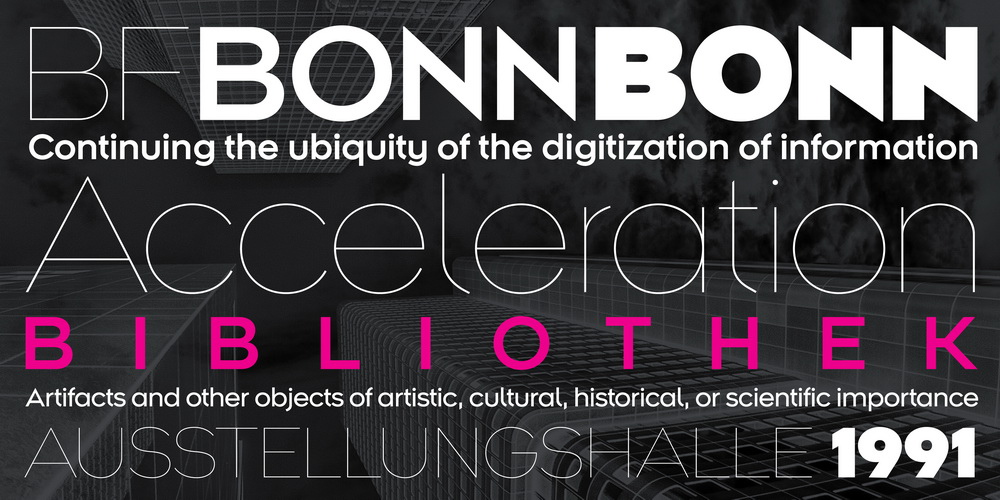
BF Bonn Font
This BF Bonn Font is perfect for German corporate branding, European business communications, diplomatic institution materials, international conference designs, government agency publications, cultural exchange programs, European Union documents, prestigious university materials, formal diplomatic correspondence, and sophisticated international applications.
What makes this BF Bonn Font exciting is its diplomatic sophistication that captures the governmental authority and international excellence of European institutional heritage. The font features structured letterforms with diplomatic characteristics that convey institutional authority, European sophistication, and international credibility. Its governmental character and diplomatic-inspired design make it ideal for brands seeking to communicate institutional excellence, European authority, and international diplomatic sophistication in governmental and institutional markets.
The BF Bonn Font family includes light, regular, medium, and bold weights with institutional alternates, diplomatic variants, and governmental flourishes. This comprehensive official font family provides designers with authoritative typographic tools to create institutional compositions while maintaining the diplomatic character essential for governmental brands and international communications.
Government institutions and diplomatic organizations consistently choose BF Bonn Font Free Download for projects requiring authentic institutional appeal and European diplomatic credibility. This font's distinctive governmental character perfectly captures the diplomatic excellence and institutional authority that resonate with audiences who appreciate governmental sophistication, European heritage, and brands that embody institutional reliability and diplomatic professionalism.
The authoritative construction of BF Bonn Font showcases precisely designed letterforms with institutional proportions that ensure exceptional credibility across all governmental applications. Its diplomatic appearance and official character create memorable impressions while maintaining the readability necessary for effective institutional communication and diplomatic materials.
Professional designers appreciate how BF Bonn Font brings immediate institutional authenticity and diplomatic authority to brand communications. The font's governmental nature allows organizations to communicate European excellence and institutional credibility while maintaining the professional quality necessary for effective positioning in governmental and diplomatic markets.
The distinguished appeal of BF Bonn Font makes it particularly effective for brands emphasizing institutional authority, European sophistication, and diplomatic excellence. Its official character resonates strongly with audiences who appreciate governmental professionalism, European heritage, and brands that represent the authoritative credibility and institutional excellence of diplomatic governance.
Whether developing materials for international institutions or creating branding for European governmental agencies, BF Bonn Font Free Download provides the authoritative typographic foundation that institutional brands need to communicate their diplomatic excellence, governmental authority, and the institutional sophistication that defines European governmental leadership and diplomatic achievement.